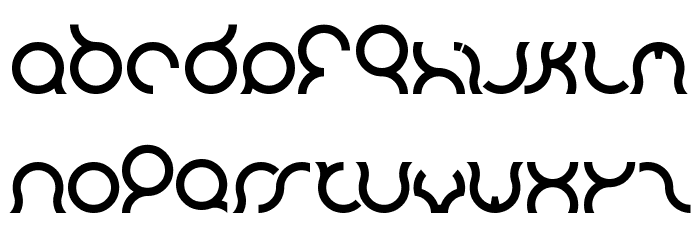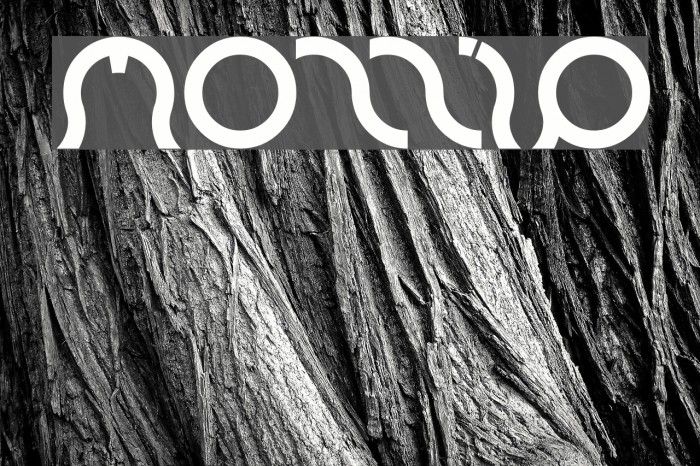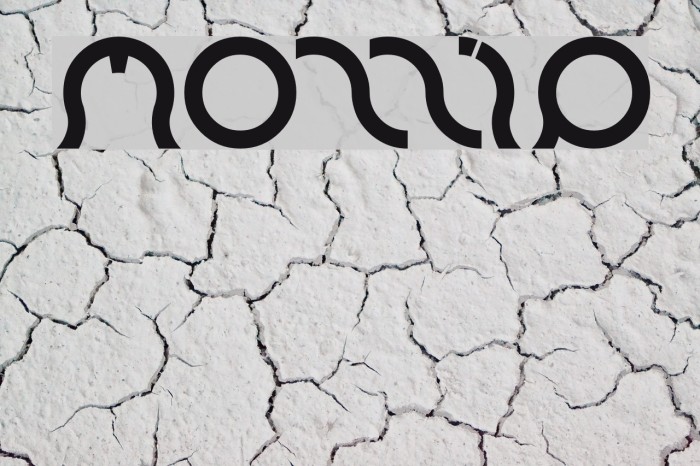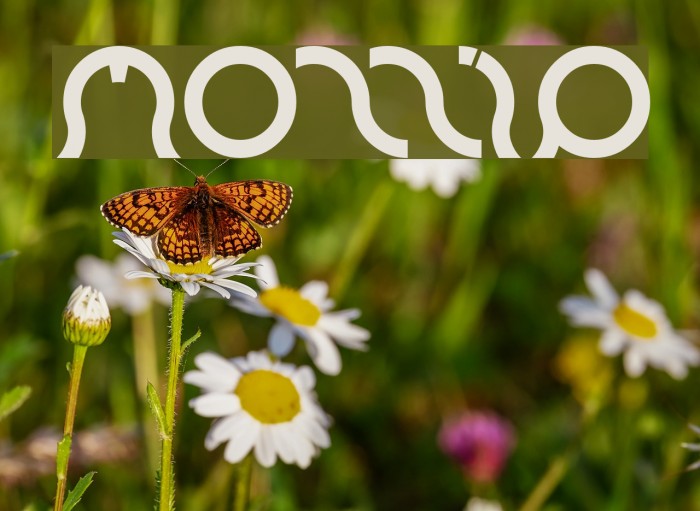
mozzie Font
This font features a unique and modern design with a futuristic flair. The characters are composed of bold, rounded shapes with consistent stroke thickness, creating a cohesive and visually striking appearance. The letters are crafted with a sense of symmetry and balance, while maintaining a playful and abstract aesthetic. The font's design is characterized by its circular forms and smooth curves, which give it a distinctive and memorable look. The spacing between characters is tight, enhancing the compact and unified feel of the text. This font is ideal for projects that require a contemporary and innovative touch.
A modern, futuristic font with bold, rounded shapes and tight spacing.
- Proposed Projects: Ideal for tech branding, sci-fi posters, modern art projects, and innovative product packaging.
- Character Spacing: Tight